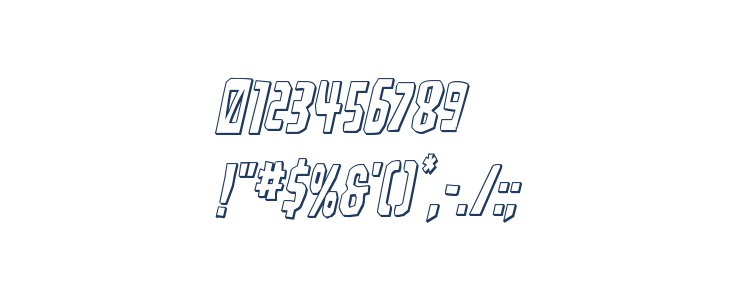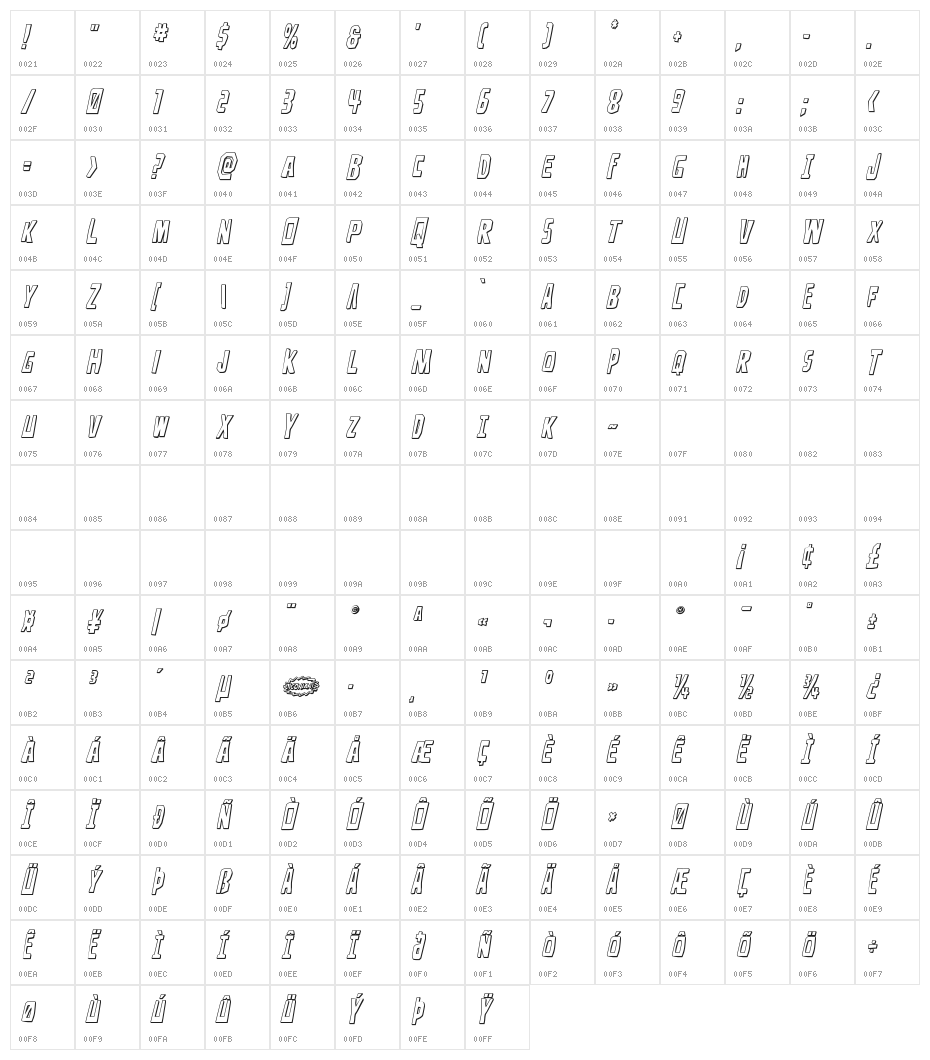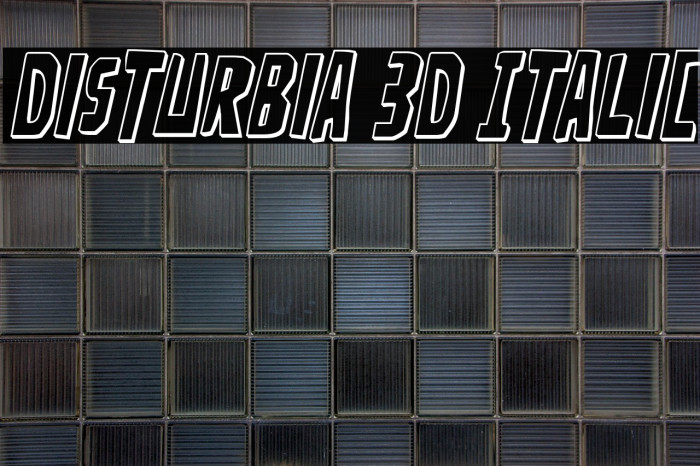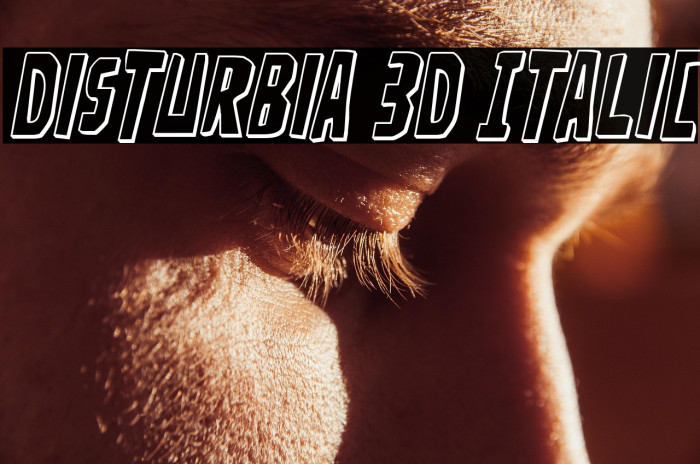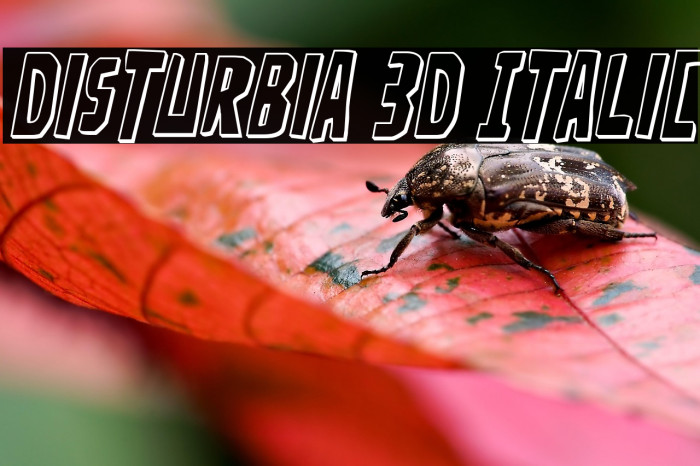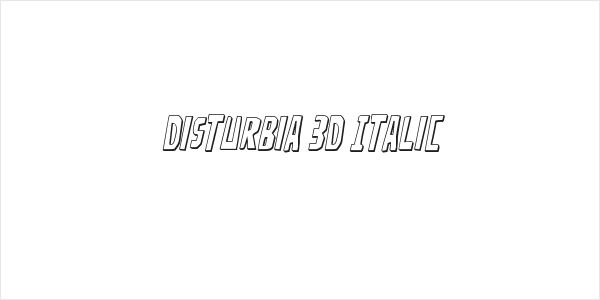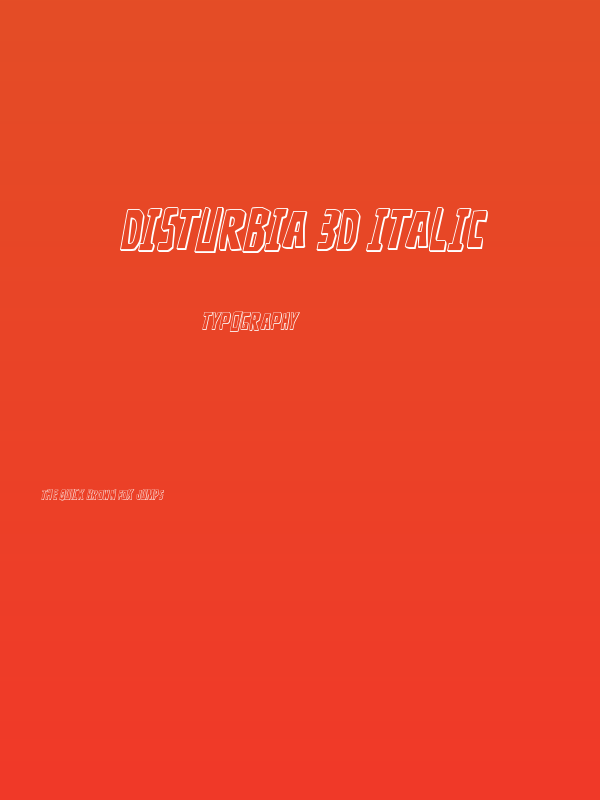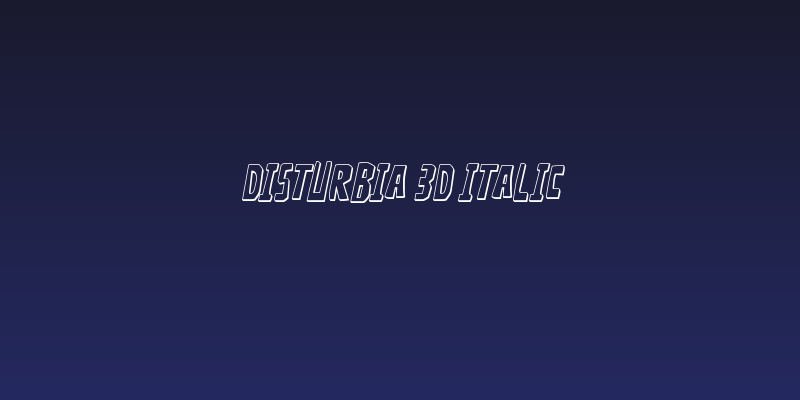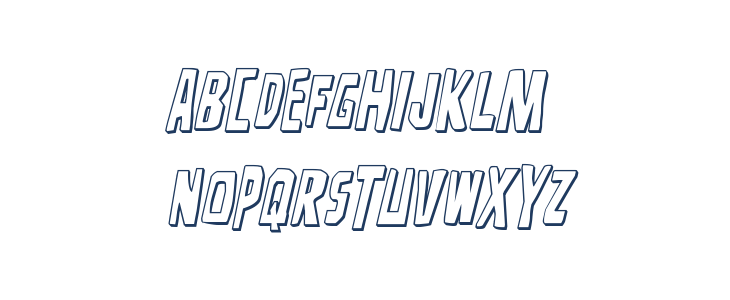
Disturbia 3D Italic Font
Disturbia 3D Italic Description
This font features a bold, three-dimensional design with an italic slant, giving it a dynamic and energetic appearance. The characters are outlined, creating a striking visual effect that stands out. The uppercase and lowercase letters maintain a consistent style, with sharp angles and a slightly condensed form. The numerals and special characters follow the same aesthetic, ensuring uniformity across all elements. This font's unique design makes it ideal for projects that require a bold statement or a modern, edgy look.
| Proposed Projects | Ideal for posters, video game graphics, branding, and any project needing a bold, modern touch. |